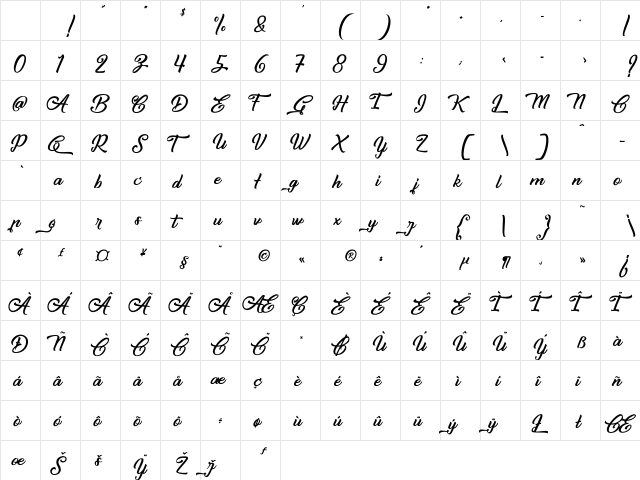
Complete Capinella ou Beaujolais Regular glyph index. Displaying only characters natively supported by Capinella ou Beaujolais Regular font.
Capinella ou Beaujolais is a composed and adaptable typeface that performs quietly and consistently across a wide range of design contexts.